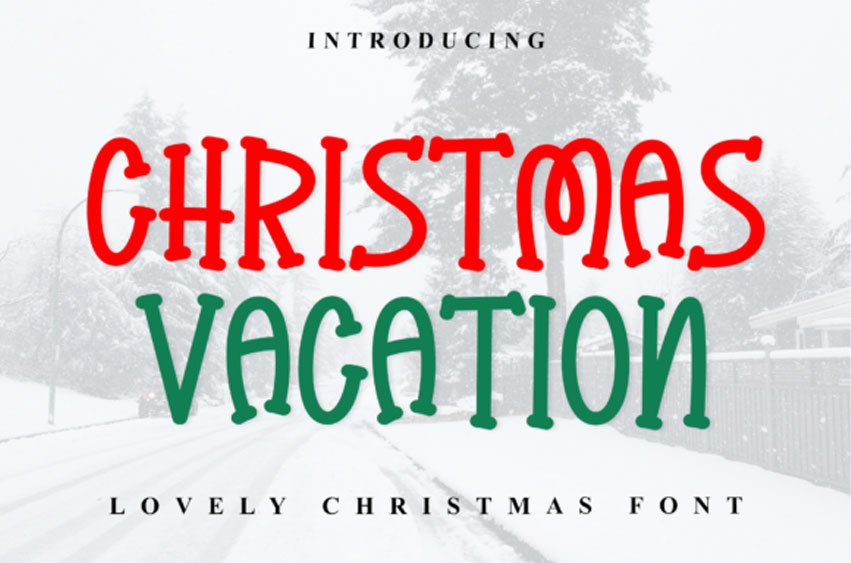
Christmas Vacation Font Step into the holiday spirit with the Christmas Vacation font, a delightfully playful display typeface that captures the informal joy of the festive season.
This font is characterized by its chunky, rounded, and bouncy letterforms that give the text an energetic, uneven rhythm, perfect for cheerful seasonal projects. The contrasting red and green colors in the preview highlight its vibrant, holiday-ready aesthetic.
The Christmas Vacation font is ideal for holiday greeting cards, festive posters, children’s holiday books, fun gift tags, and any branding that requires a lovely, unique, and family-friendly Christmas message. This playful typeface is designed to bring a smile and a dash of bright color to your winter designs.